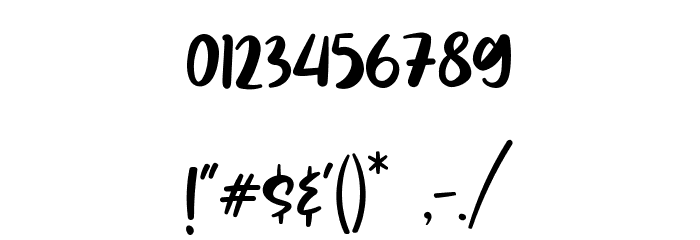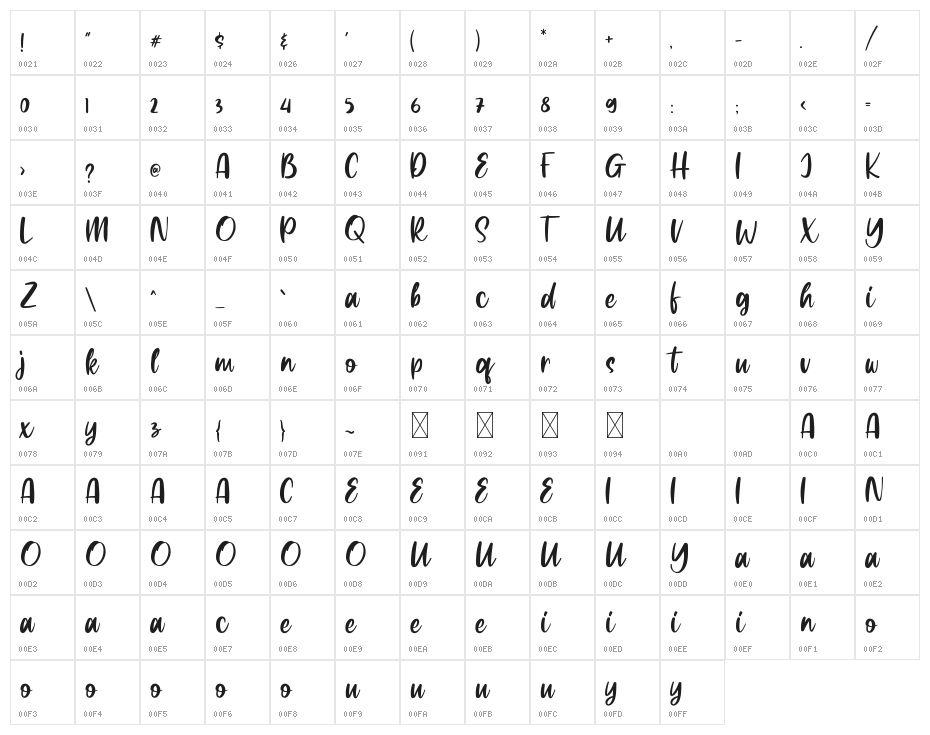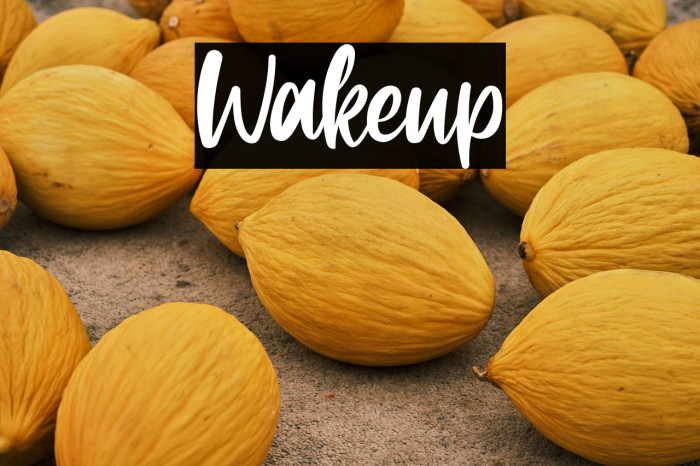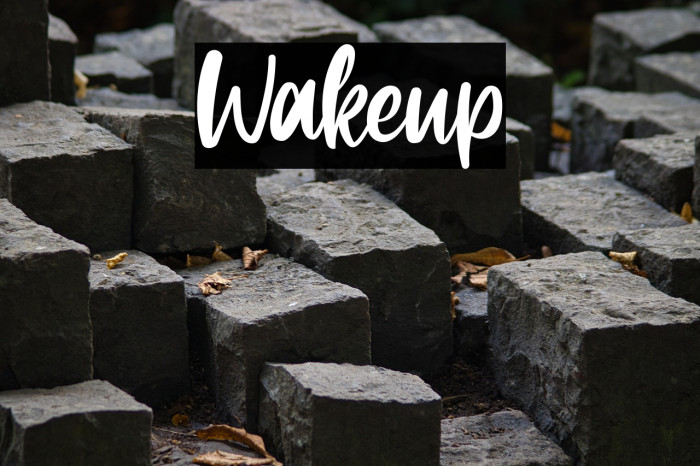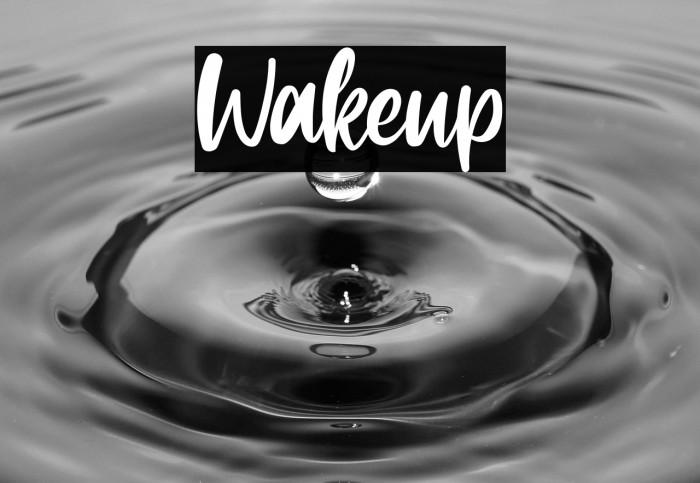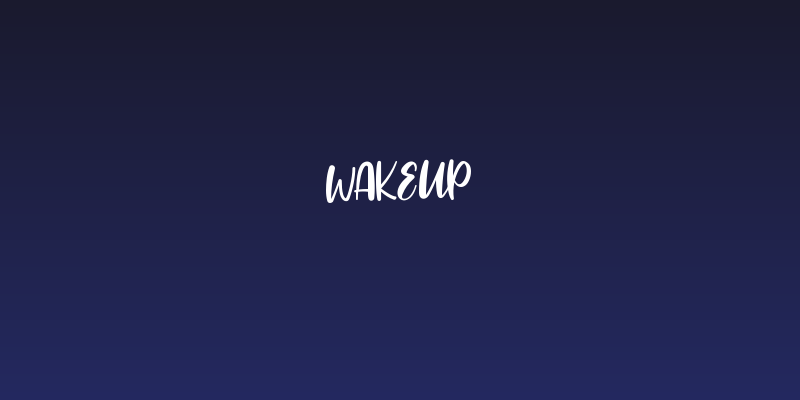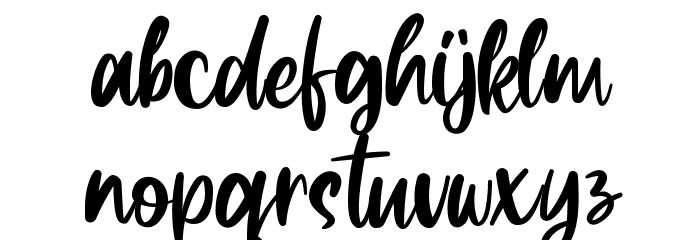
Wakeup Font
Wakeup Description
This font features a lively and energetic script style with a handwritten appearance. The letters are bold and fluid, with a playful and informal character. The uppercase letters are tall and slightly slanted, while the lowercase letters maintain a consistent flow with rounded edges. The numbers and special characters complement the overall style, adding to its versatility. This font exudes a sense of creativity and spontaneity, making it ideal for projects that require a personal touch. Its bold strokes and smooth curves give it a dynamic presence, perfect for capturing attention.
| Proposed Projects | Ideal for greeting cards, invitations, branding, social media graphics, and creative posters. |